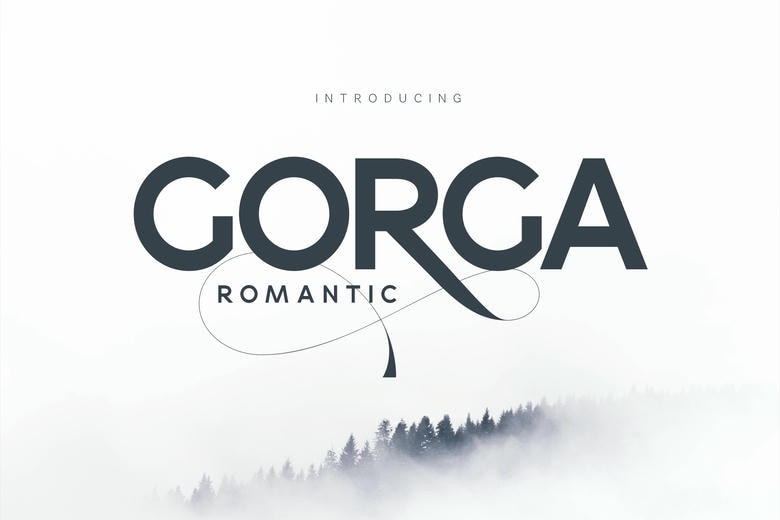
Gorga Font
Gorga Romantic is a contemporary and neat, sans serif typeface that skilfully incorporates geometric steadiness and sophisticated flowing lines. Although its base is formed by bold and wide-proportioned characters and sharp lines, it has a distinct ornamental feature, an elongated and calligraphic tail on the uppercase R that extends under the rest of the letters in a fine, thin-line loop.
This distinct contrast of the heavy sans serif stems and the light and romantic swash provides the font with the modern, but elegant character. It suits perfectly when branding a fashion brand, contemporary wedding invitations, lifestyle magazine headings, and expensive cosmetic packaging.
Gorga Sans Serif Font